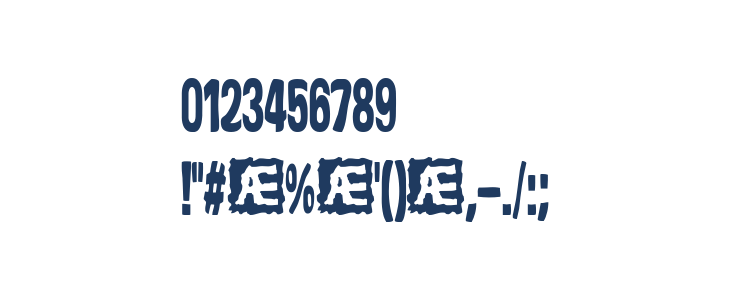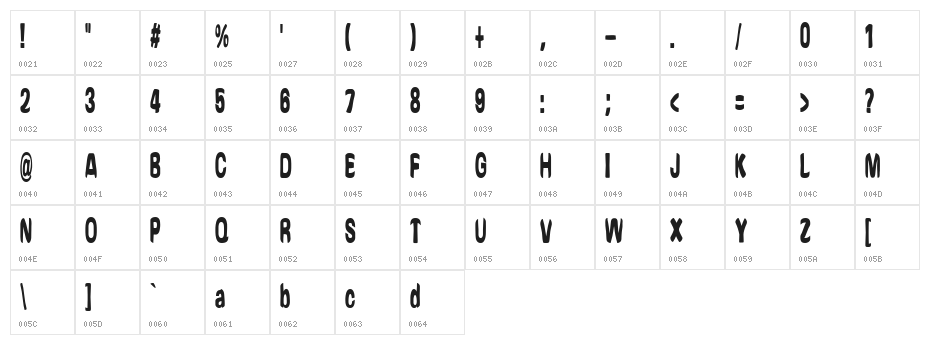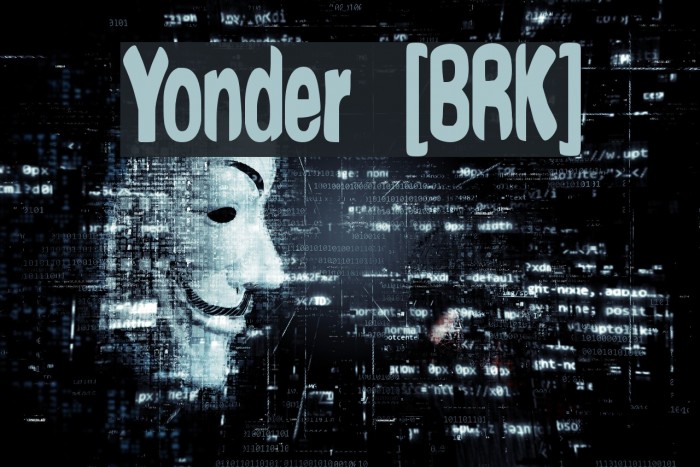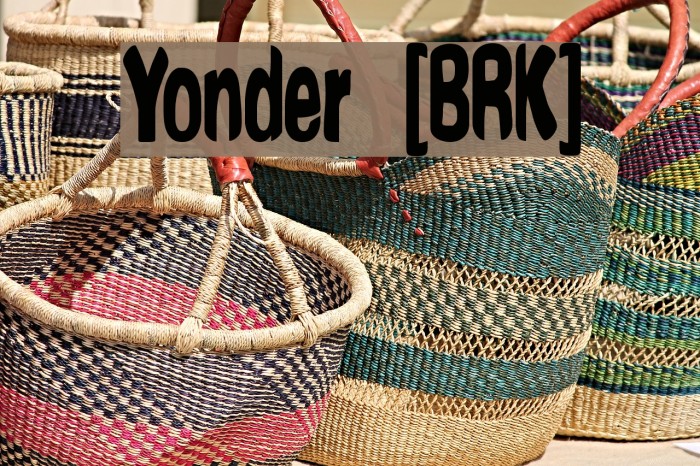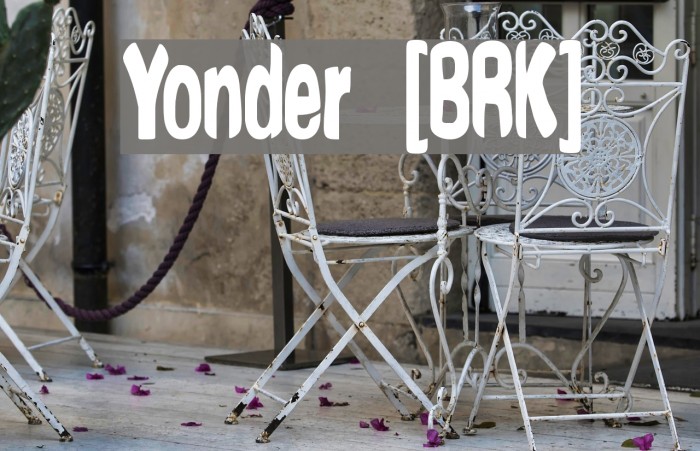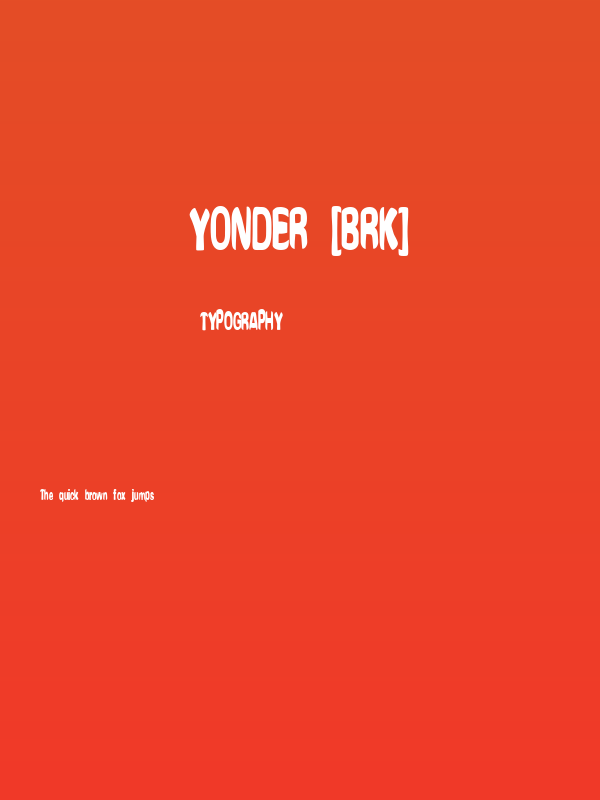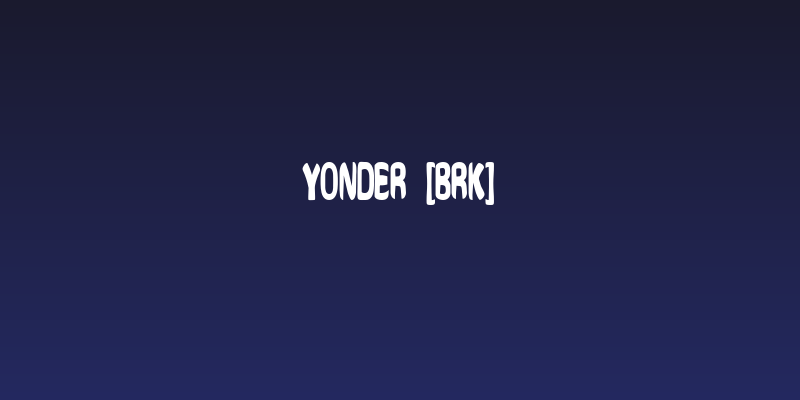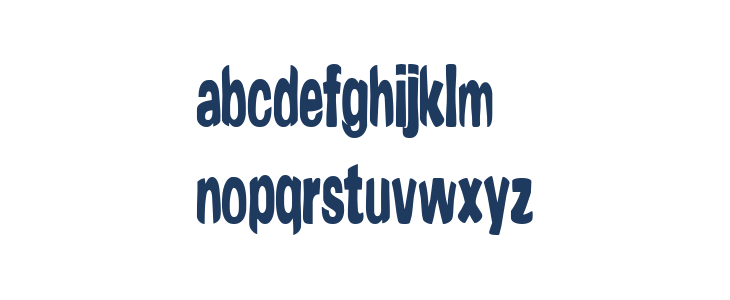
Yonder [BRK] Font
Yonder [BRK] Description
This font features a bold and playful design with a slightly distorted appearance, giving it a unique and eye-catching look. The characters are thick and rounded, with a wavy, uneven baseline that adds a sense of movement and energy. The uppercase and lowercase letters maintain a consistent style, with the lowercase being slightly more condensed. Numbers and special characters are included, following the same bold and dynamic style. This font is ideal for projects that require a fun and informal touch, making it suitable for creative and artistic applications.
| Overall Style | Playful, Dynamic |
| Proposed Projects | Ideal for posters, children's books, comic strips, and playful branding. |